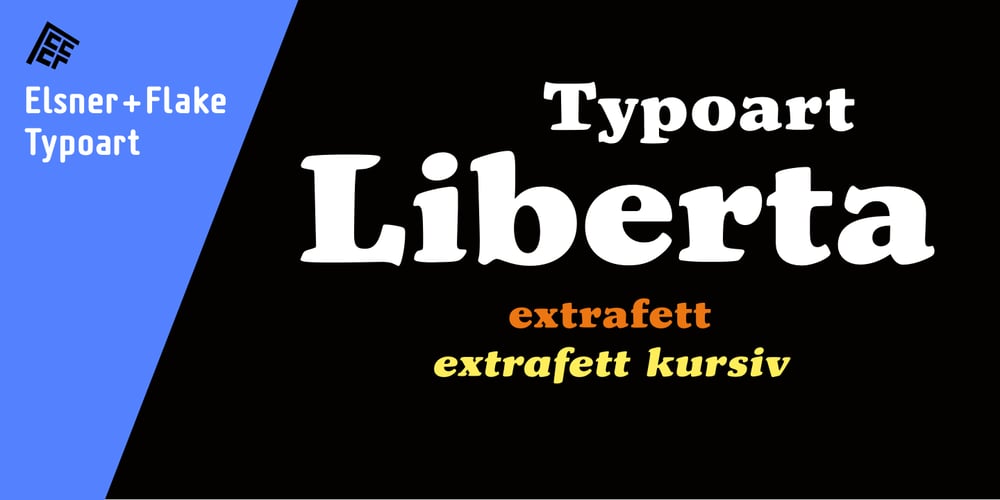
Liberta TA Font Family was designed by Herbert Thannhaeuser, Harald Brödel and published by Elsner+Flake. Liberta TA contains 2 styles and family package options. Between 1958 and 1961, Herbert Thannhaeuser developed the typeface Liberta for Typoart as a broadly conceived newspaper type which established itself quickly. Its positive adaptation by publishing houses and printing companies was based, next to its agreeable and reader-friendly general impression, also on a relatively robust typeface character which does not sacrifice its power of impression and elegance even when confronted with poor paper and printing qualities. In the 1970s, a bullish and robust design style took over the area of consumer goods which then required a corresponding advertising face. Harald Brödel re-worked the Liberta Ultra for phototypesetting, and, with great sensitivity, designed a matching cursive variation. Both types work especially well as an attention getter for advertising and for emphasis purposes.